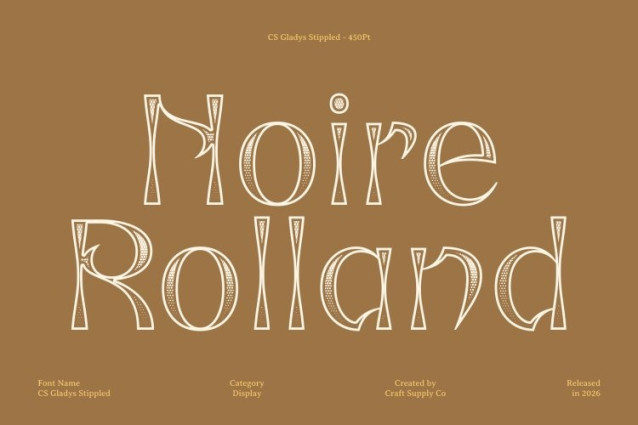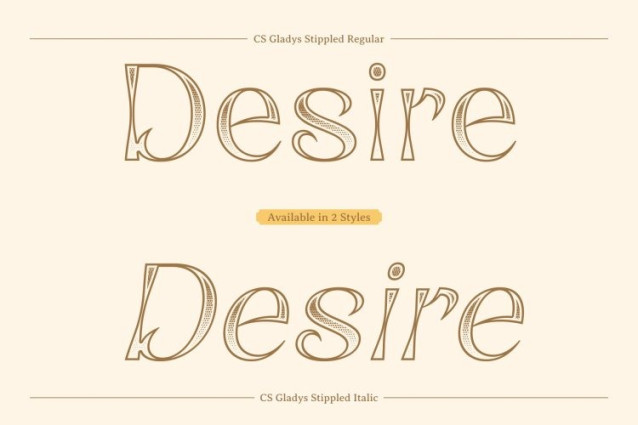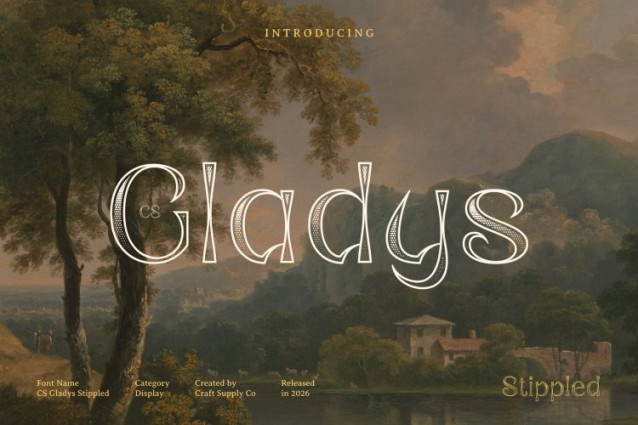
CS Gladys Stippled Font
CS Gladys Stippled Font is a striking display font defined by its unique reverse contrast structure. Unlike traditional serif typography, the weight distribution is reversed horizontal strokes appear thicker while vertical stems remain thinner creating an intriguing and unconventional visual rhythm. Enhanced with a stippled texture, the font gains a subtle dotted surface that adds depth and a handcrafted feel, enriching its bold and distinctive character.
The reversed stroke contrast gives this font a visually dynamic appearance that stands apart from conventional typefaces. This unexpected balance of thick and thin lines creates a sense of movement and visual interest, while the stippled detailing introduces texture that enhances the overall design without reducing clarity.
With its dramatic structure and expressive forms, this font delivers strong visual impact in display settings. The combination of reverse contrast and textured finish makes each letter feel vibrant and full of personality, ensuring designs capture attention instantly.
This is a ideal for posters, branding, editorial headlines, packaging, and advertising that aim to highlight originality and creativity. Its unique aesthetic allows designers to craft layouts that feel bold, memorable, and visually engaging.